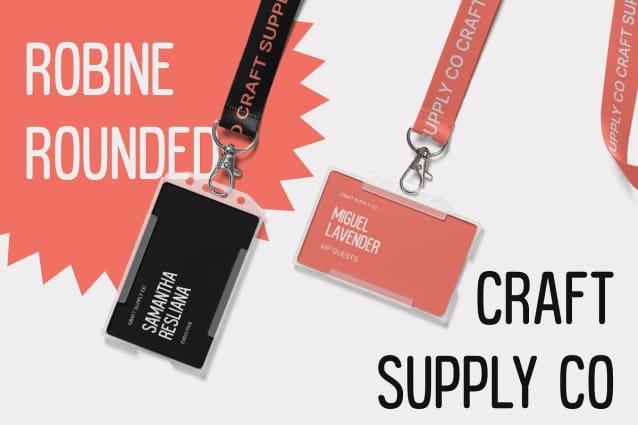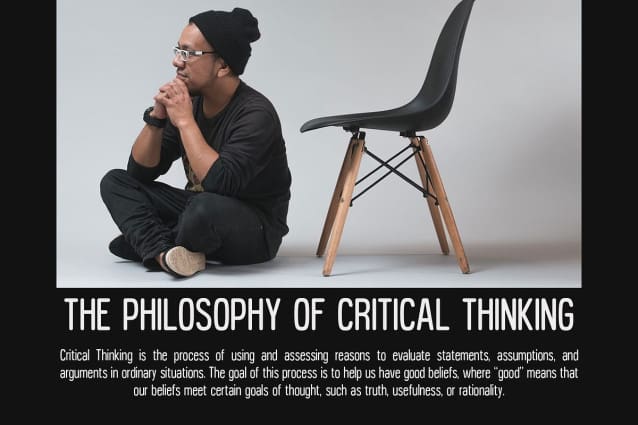
Robine Rounded Font
Robine Rounded Font: Embracing Softness and Friendliness. Soft and Approachable Design Robine Rounded presents a sans-serif typeface with low contrast, radiating a friendly and approachable aura. Its rounded edges and soft curves invite readers with warmth and gentleness.
Enhanced Readability The font’s condensed form optimizes space without compromising readability, ensuring clarity and legibility even in tight layouts. Its balanced proportions and rounded terminals contribute to effortless reading experiences.
Versatile Application Ideal for a wide range of design projects, This font adapts seamlessly to various contexts. From digital interfaces to print media, its soft and condensed demeanor adds a touch of friendliness to every application.
Warmth in Every Character Each character of This font is meticulously crafted to exude warmth and charm. Its rounded features and low-contrast strokes create a harmonious blend of softness and clarity, making it a versatile choice for designers seeking a friendly yet professional typeface.
Warmth Meets Functionality This font stands out as a versatile sans-serif font that combines friendly vibes with functional design. With its soft curves, condensed form, and low-contrast strokes, it brings warmth and approachability to any project, ensuring readability and visual appeal across diverse applications. Experience the blend of softness and functionality with Robine Rounded.